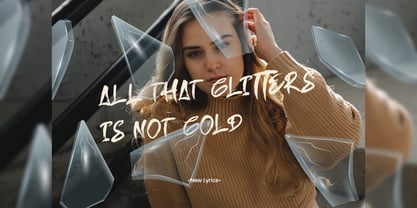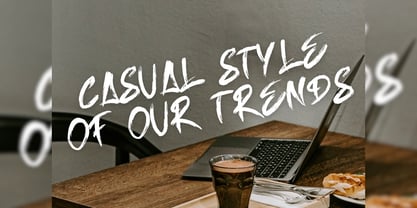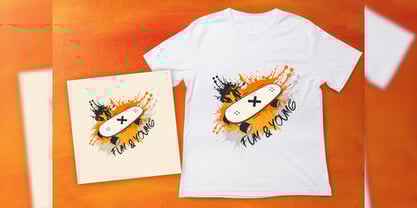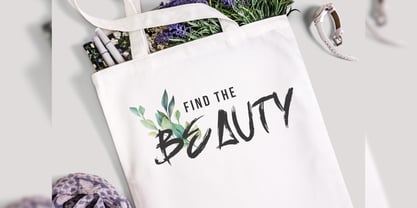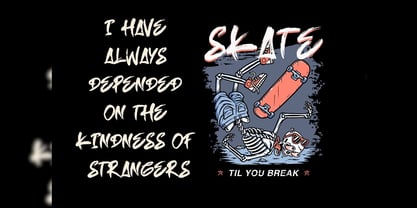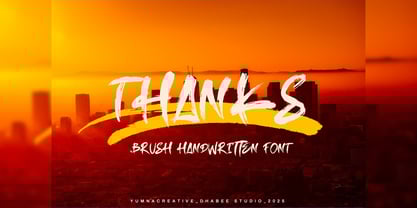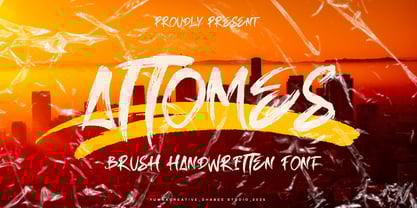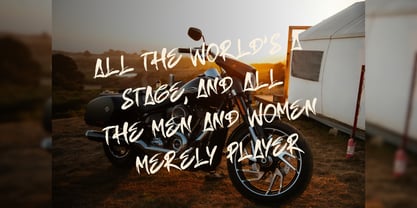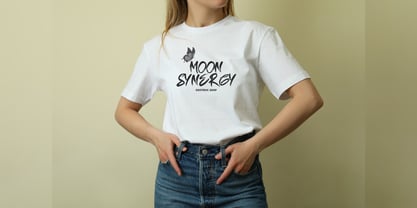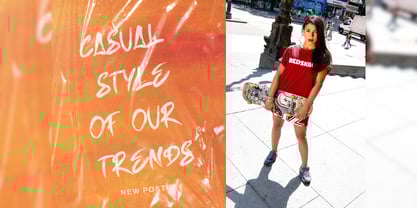
Attomes
by Yumnacreative
The Attomes Font Family was designed by Dhimas Habibie and published by Yumnacreative. Attomes contains 1 styles. More about this family
Introducing Attomes – Brush Handwritten Font
Attomes – Brush Handwritten Font which has a hand lettering brush style. So it looks natural like a handmade. This texture is very detailed. This font is suitable for logos, product branding, printable templates or for text overlay to any background image, also suitable for use in title design. Such as apparel, invitations, books tittle, stationery design, quotes, branding, greeting card, t-shirt, packaging design, poster and more.